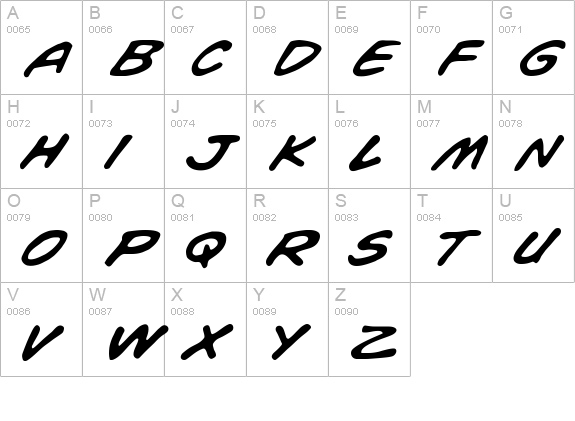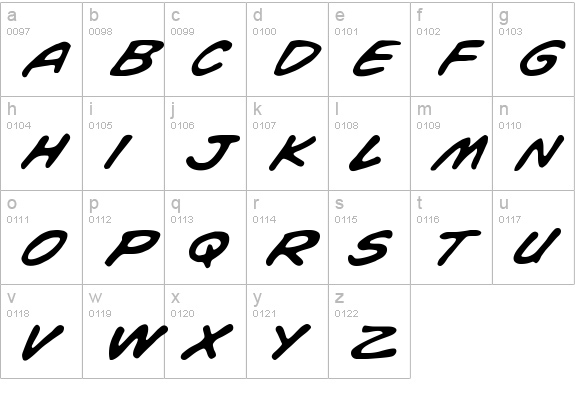
WhizBang-Bold is a strong, high-contrast variant in the WhizBang typeface family \xE2\x80\x94 well suited to headlines, attention-grabbing titles, and strong calls-to-action.
Introducing WhizBang-Bold, a sensational typeface that will make your designs truly come alive! With its bold and energetic presence, WhizBang-Bold is perfect for adding a touch of excitement and modernity to any project. This font boasts a unique combination of sharp edges and fluid curves, creating a harmonious balance between strength and elegance. Its eye-catching appeal is guaranteed to captivate your audience, leaving a lasting impression. WhizBang-Bold is designed with versatility in mind, making it suitable for a wide range of applications. Whether you're crafting attention-grabbing headlines, designing impactful logos, or creating stunning posters, this font will elevate your creations to new heights. But here's the best part – WhizBang-Bold is absolutely free! That's right, you heard it correctly. You can freely download this incredible font at FontsMarket.com. We believe that creativity should be accessible to all, and that's why we're offering WhizBang-Bold at no cost. So go ahead, unleash your imagination and let WhizBang-Bold be your creative partner. Whether you're a professional designer or a passionate hobbyist, this font will empower you to bring your visions to life. Don't miss out on this opportunity to add a touch of WhizBang-Bold magic to your designs. Download now and let your creativity soar!